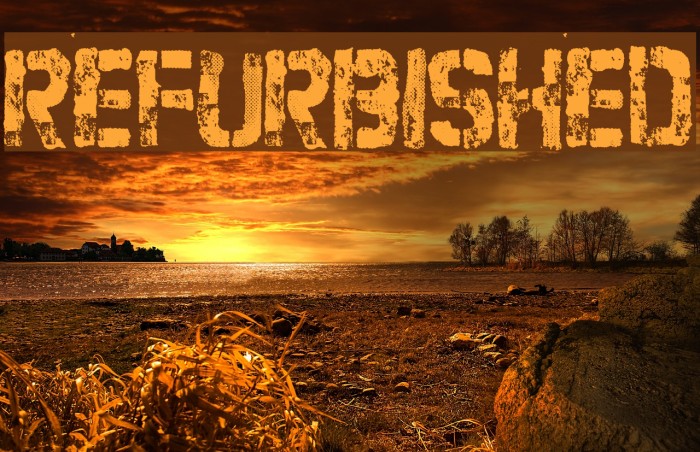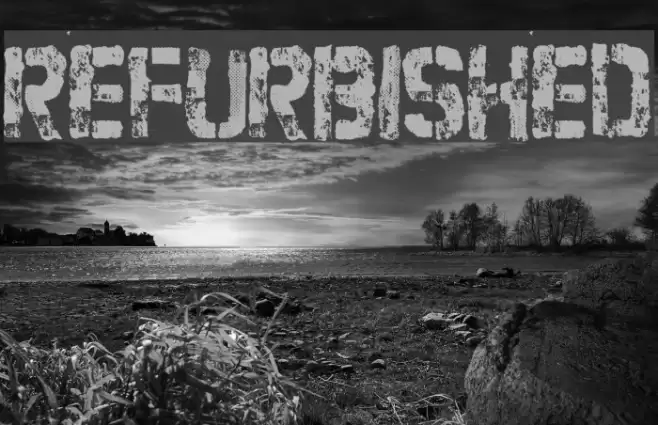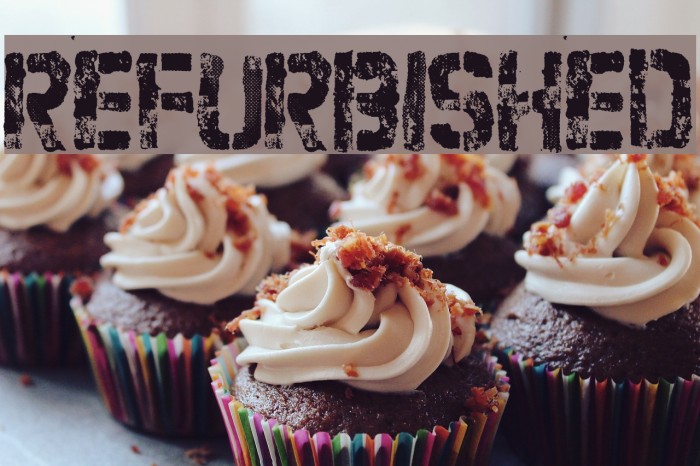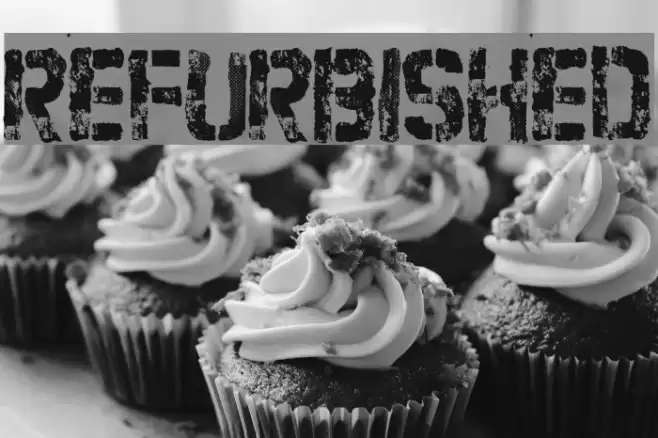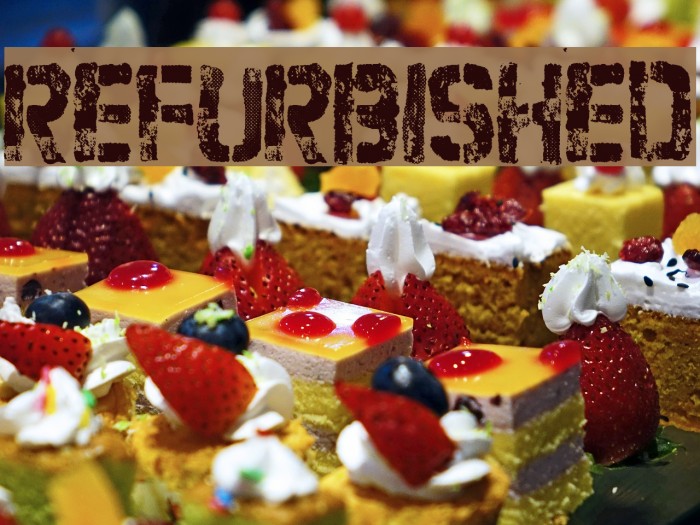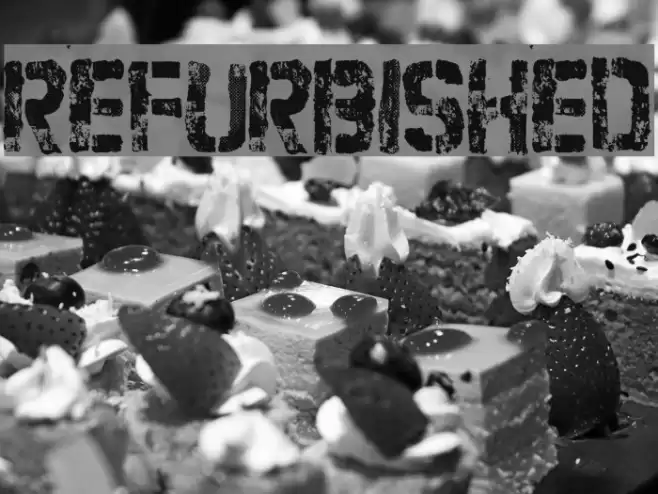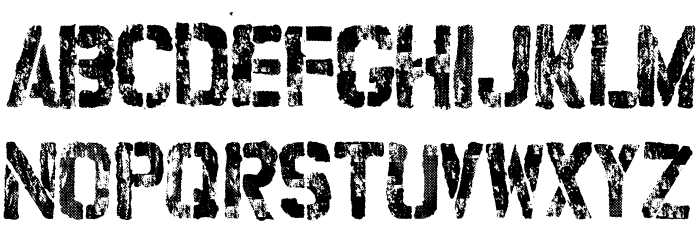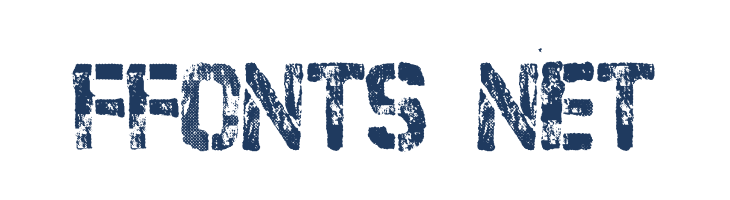
Refurbished Font
Refurbished Description
This font features a distressed, grunge aesthetic with a bold and impactful presence. Each character appears weathered and worn, giving it a vintage, industrial feel. The texture is reminiscent of old, eroded print, adding a layer of depth and character to the text. The uppercase letters are uniform in height, maintaining a consistent baseline, while the rough edges and irregularities in the strokes create a dynamic visual interest. This style is perfect for projects that require a rugged, authentic look, such as posters, album covers, or branding for edgy, alternative products.
| Proposed Projects | Ideal for posters, album covers, branding for alternative products, and any project needing a rugged, authentic look. |